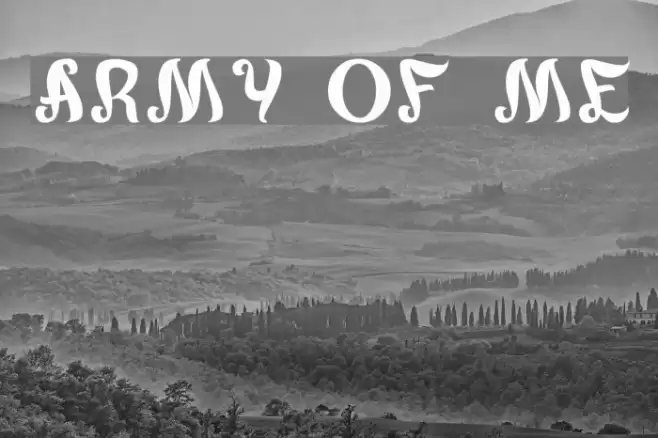
army of me Font
army of me Description
This font features a bold and decorative style with unique, playful elements. Each character is adorned with small circular embellishments, giving it a whimsical and artistic flair. The strokes are thick and consistent, providing a strong visual impact. The overall design is reminiscent of vintage or circus-themed typography, making it stand out with its distinct personality. The uppercase letters are particularly striking, with exaggerated curves and loops that add to the font's charm. This font is ideal for projects that require a touch of creativity and boldness.
A bold, decorative font with playful circular embellishments and vintage flair from Uncategorized fonts.
- Proposed Projects: Ideal for posters, event invitations, branding, and any creative project needing a bold statement.
- Overall Style: Vintage, Decorative